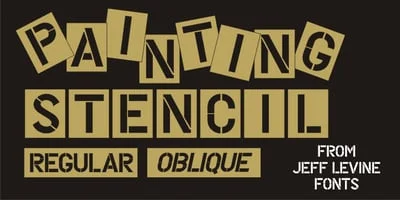
Painting Stencil JNL Font
Painting Stencil JNL Font is perfect for street art projects, urban graffiti designs, industrial warehouse signage, military equipment labeling, shipping container graphics, construction site materials, spray paint campaigns, artistic workshop branding, DIY craft projects, protest movement graphics, and any project that requires authentic stencil character with industrial painting functionality.
What makes Painting Stencil JNL Font exciting is its genuine replication of traditional stencil cutting techniques that captures the practical functionality and artistic potential of spray-painted letterforms used in industrial and street art applications. This utilitarian typeface features characteristic bridge cuts with stencil precision that ensure proper paint flow while maintaining excellent readability and authentic workshop aesthetics. The font's stencil character adds instant industrial credibility and street art appeal to any design, making it perfect for brands celebrating DIY culture and urban artistic expression.
Painting Stencil JNL Font comes in multiple font families including Regular, Bold, Light, Condensed, Heavy, and Industrial variations, offering designers comprehensive options to create stenciled compositions and achieve the perfect spray-paint aesthetic for urban-focused design projects.
Whether you're developing street art brand identity, creating industrial signage materials, or designing urban artistic campaigns, Painting Stencil JNL Font provides the ideal solution for projects demanding authentic stencil character and industrial painting functionality. This practical typeface excels in display applications where stencil presence is essential, ensuring your designs communicate DIY authenticity and urban workshop values. The cut-out character and stencil styling of Painting Stencil JNL Font make it an indispensable tool for designers who prioritize street art aesthetics, industrial functionality, and authentic spray-paint stencil culture in their typographic selections.